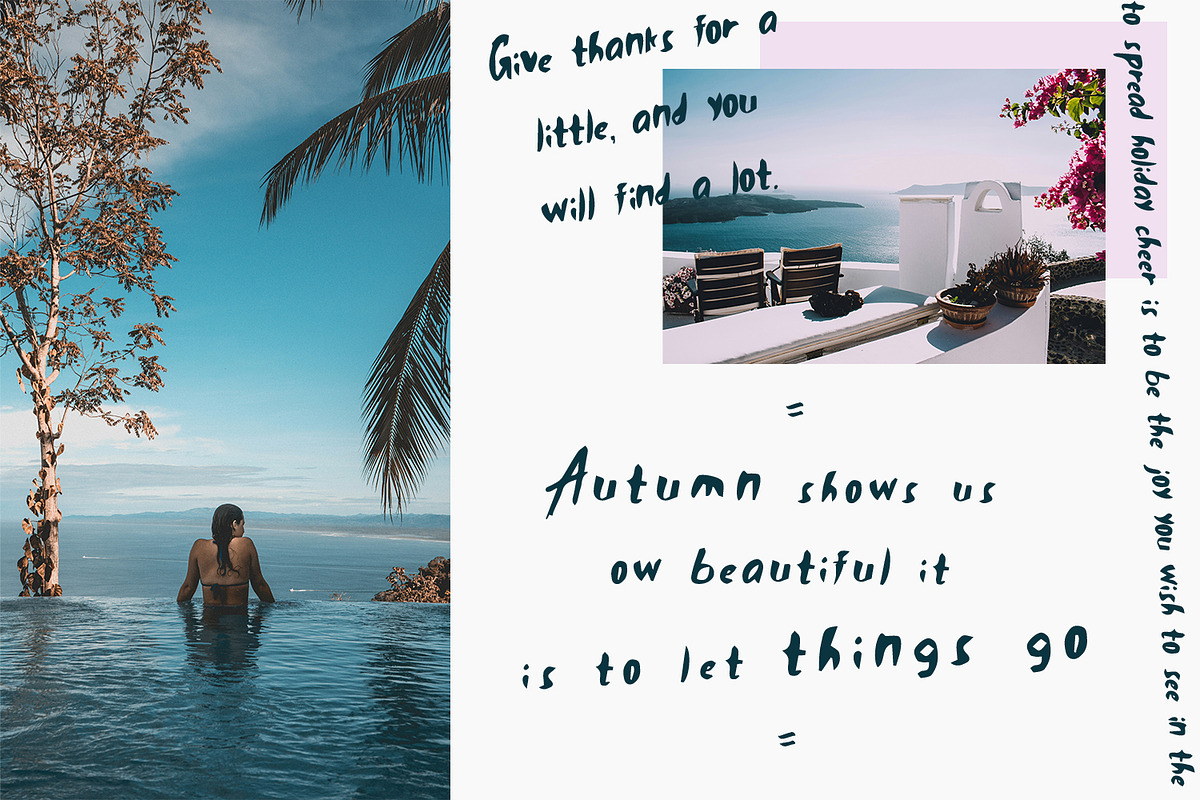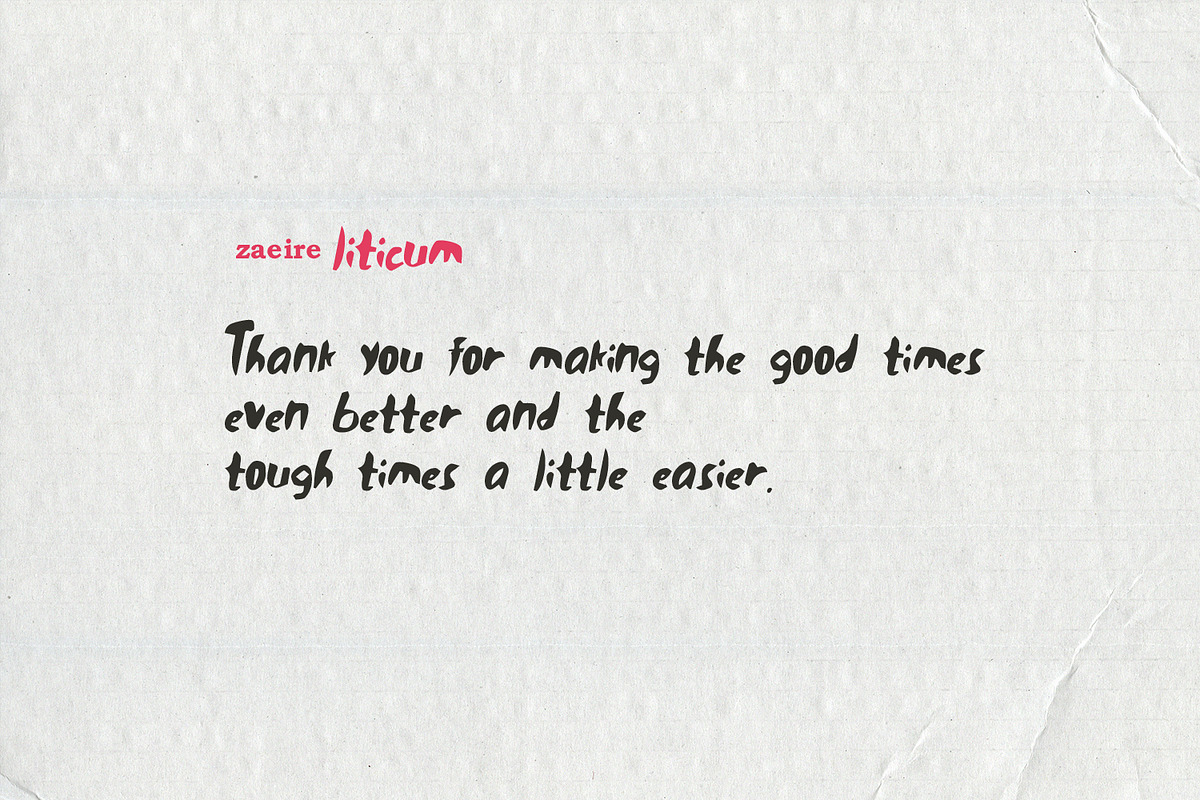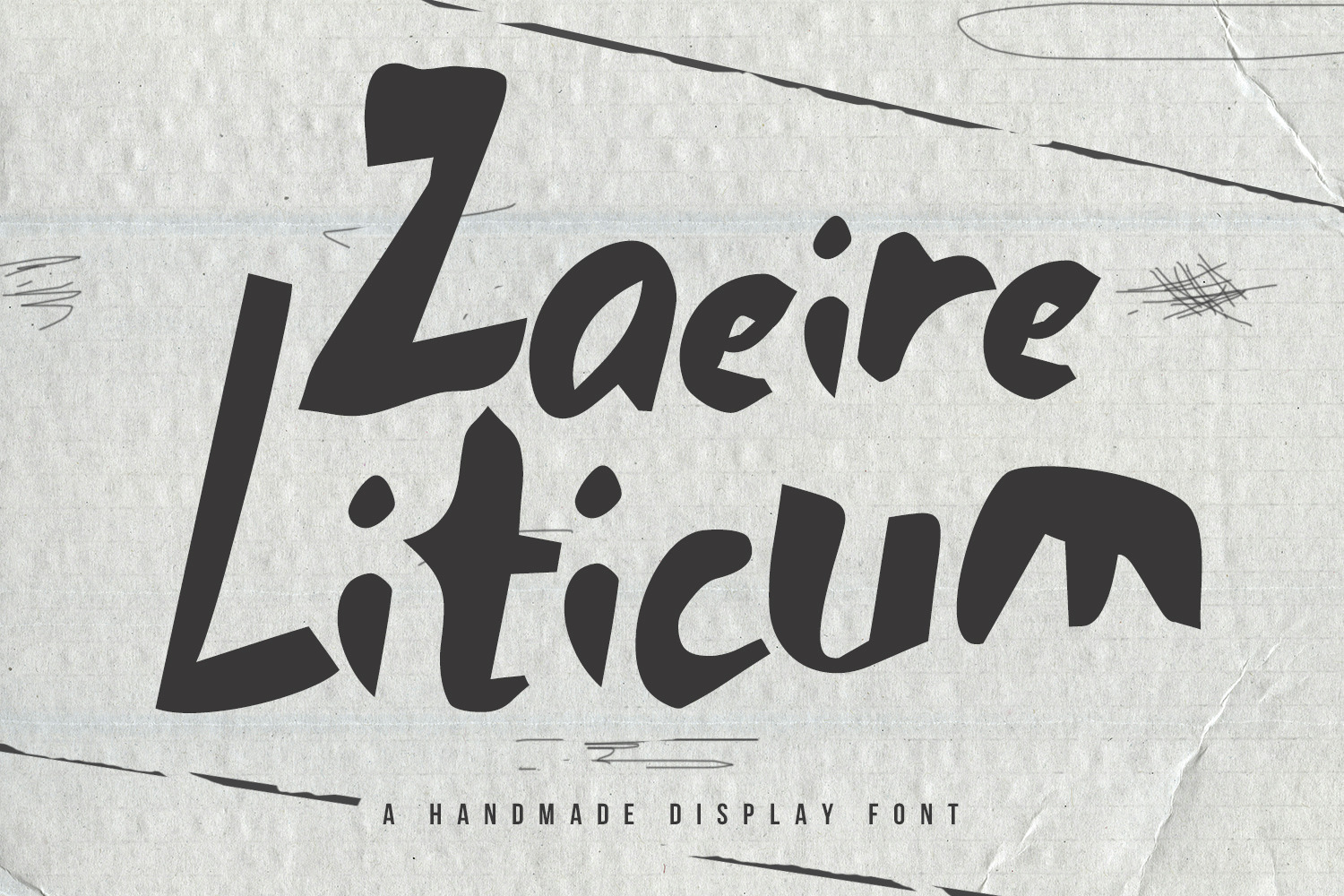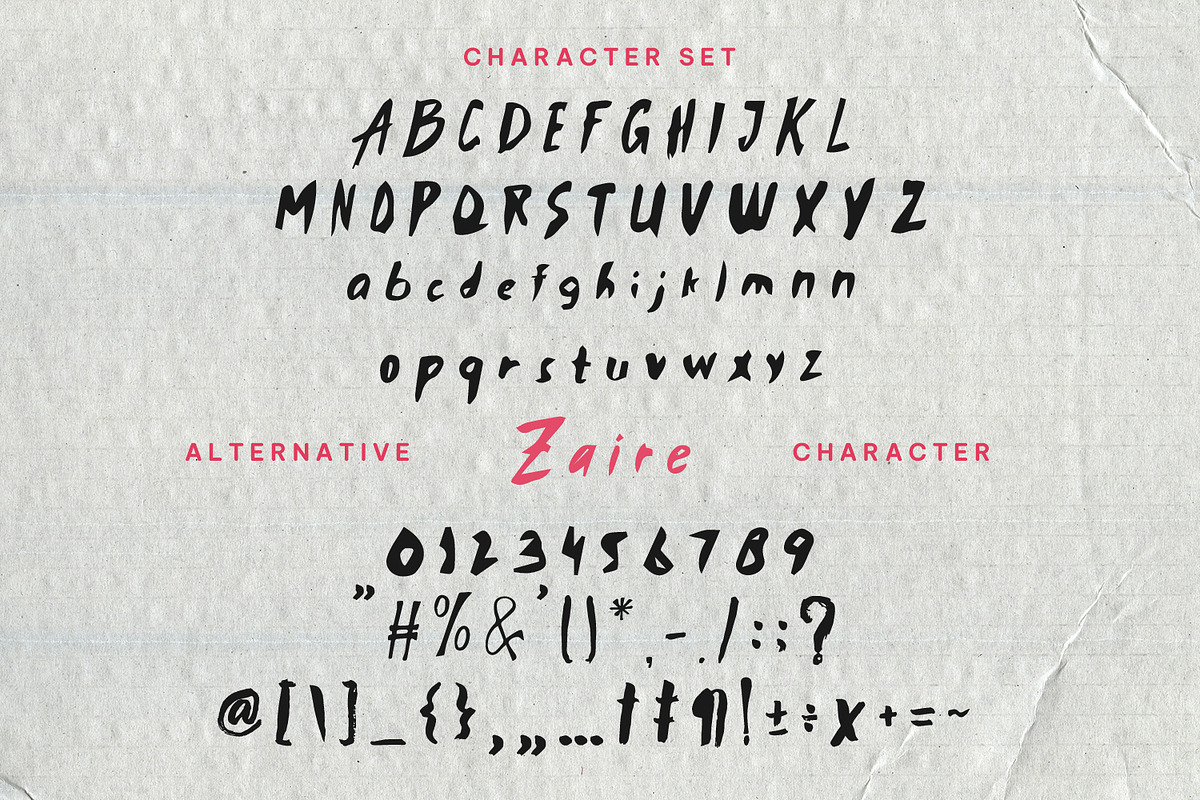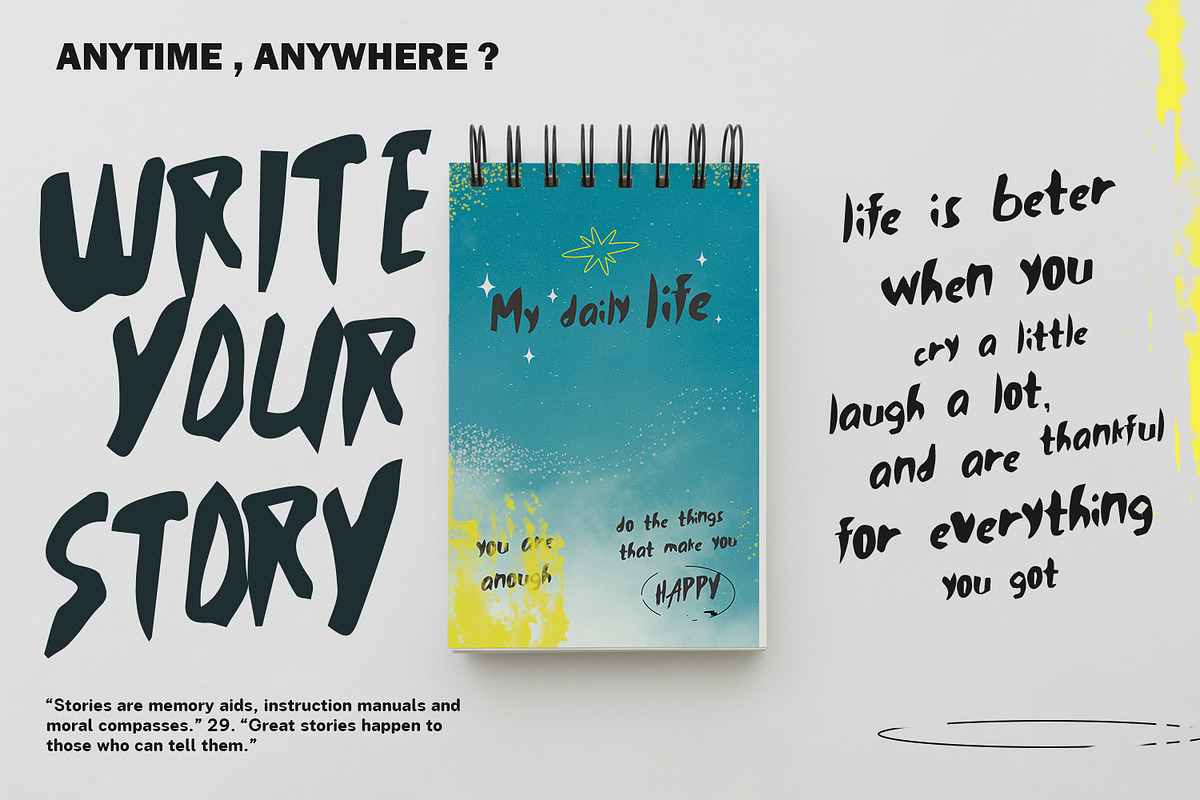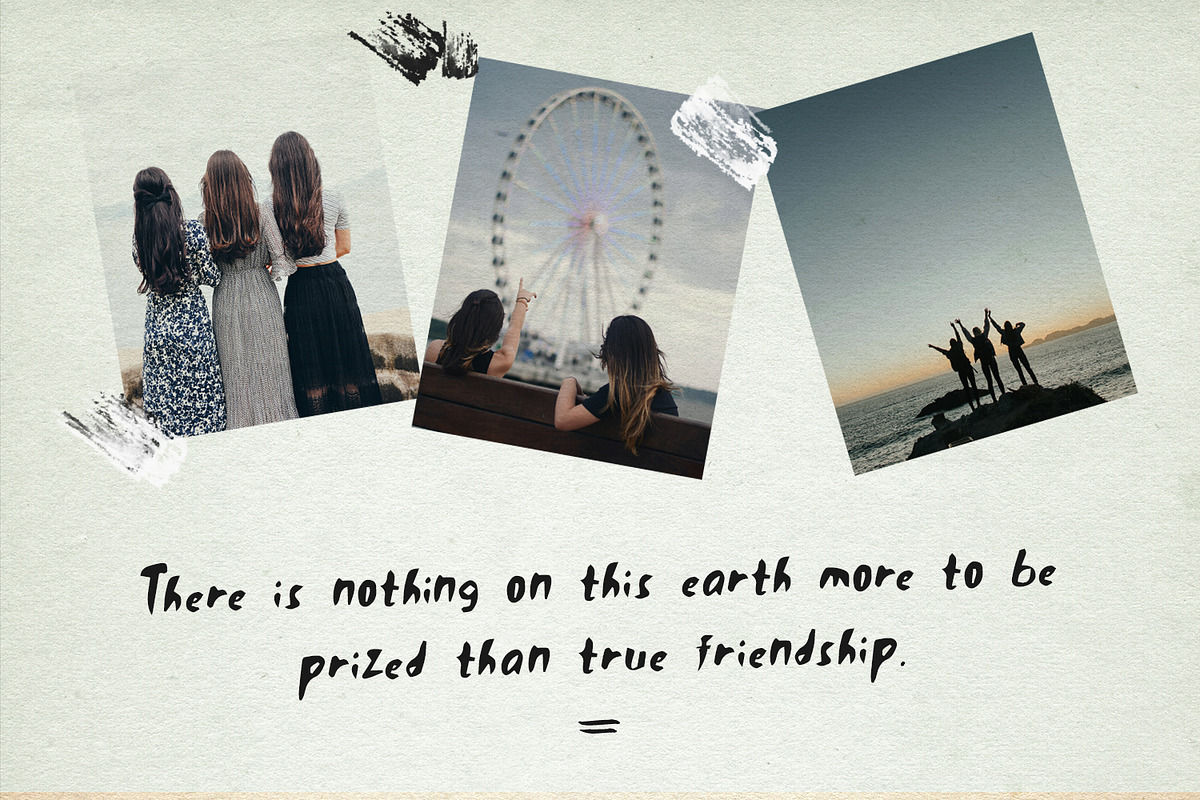
Zaeire Liticum Handmade Display Font
Zaeire Liticum is a handmade display handwritten font. With bold stroke, fun character with a bit of alternates. To give you an extra creative work. Zaeire Liticum font support multilingual more than 100+ language. This font is good for logo design, Social media, Movie Titles, Books Titles, a short text even a long text letter and good for your secondary text font with sans or serif. Make a stunning work with Zaeire Liticum font.